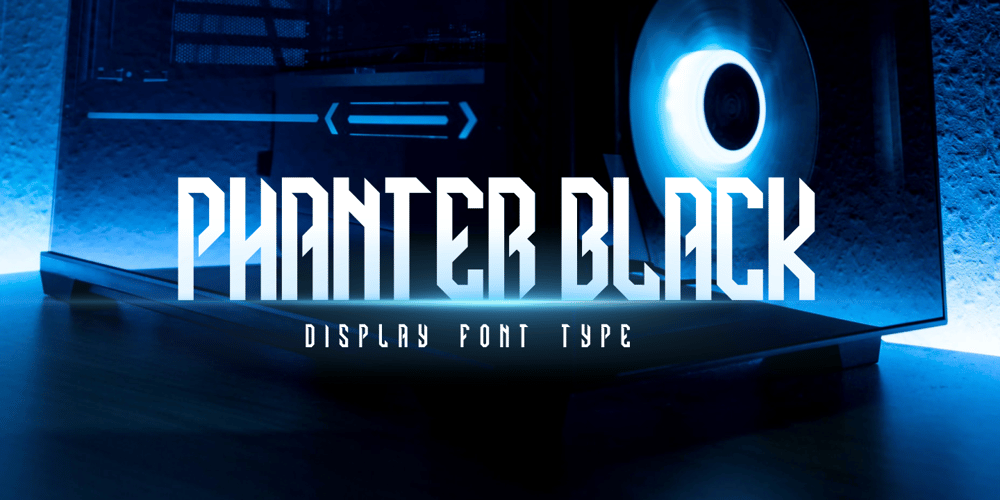
Phanter Black Font Family was designed by Sipanji and published by Sipanji21. Phanter Black contains 1 styles and family package options. “Phanter Black” is a display font with a modern, space, and futuristic theme. This font reflects elements of technology, strength, and a futuristic aesthetic often associated with modern design. The space theme adds an element of exploration and the unknown in the universe to your design.”Phanter Black” is well-suited for various design projects that aim to emphasize these aspects, including space-related designs, advanced technology, advertisements for futuristic products, and more. With “Phanter Black,” you can create designs that convey durability, strength, and a bold vision of the future, while infusing a futuristic touch into your projects.